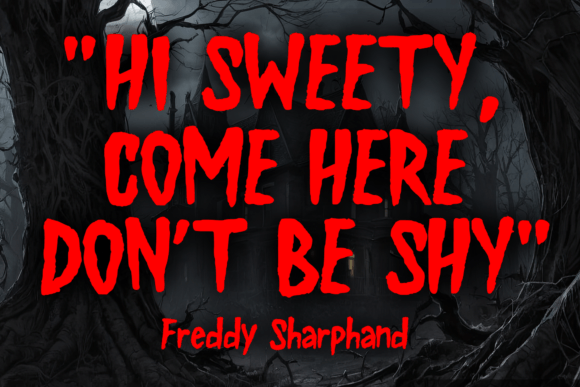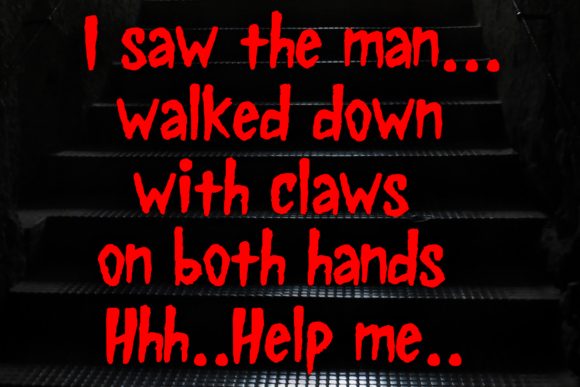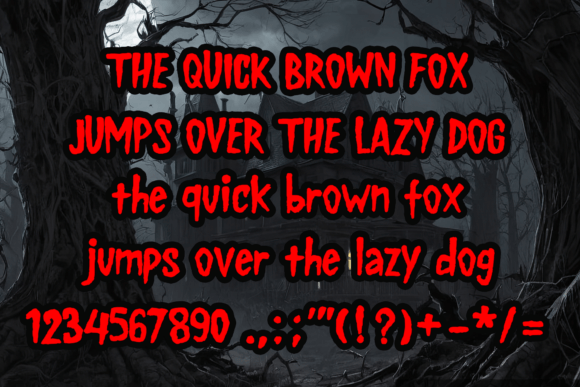
Introduction to Scary Fright Font Font
Fonts play a crucial role in design, and the Scary Fright Font font is a typeface that brings both character and versatility to any project. Whether you’re working on a branding project, a website, or a print design, the Scary Fright Font font offers a unique style that can elevate your work.
Scary Fright is a cool horror font inspired by vintage horror movies, horror comics, and Metal music.
It will be perfect for your horror and Halloween themed needs You can use it for anything ranging from merchandise like t-shirts and clothing, for your scary book designs, Halloween party needs, greeting cards, stickers, posters, banners, or anything that needs a horror touch.
Key Features of Scary Fright Font Font
Why Choose Scary Fright Font Font?
The Scary Fright Font font is more than just a typeface – it’s a design tool that helps you communicate your message with style and clarity. Its unique character set and versatile design make it suitable for a wide range of applications, from elegant invitations to bold headlines.
With its carefully crafted letterforms and balanced proportions, the Scary Fright Font font ensures readability and visual appeal across all mediums.
What makes Scary Fright Font font special?
The Scary Fright Font font stands out with its unique design, exceptional readability, and versatility across various design applications.